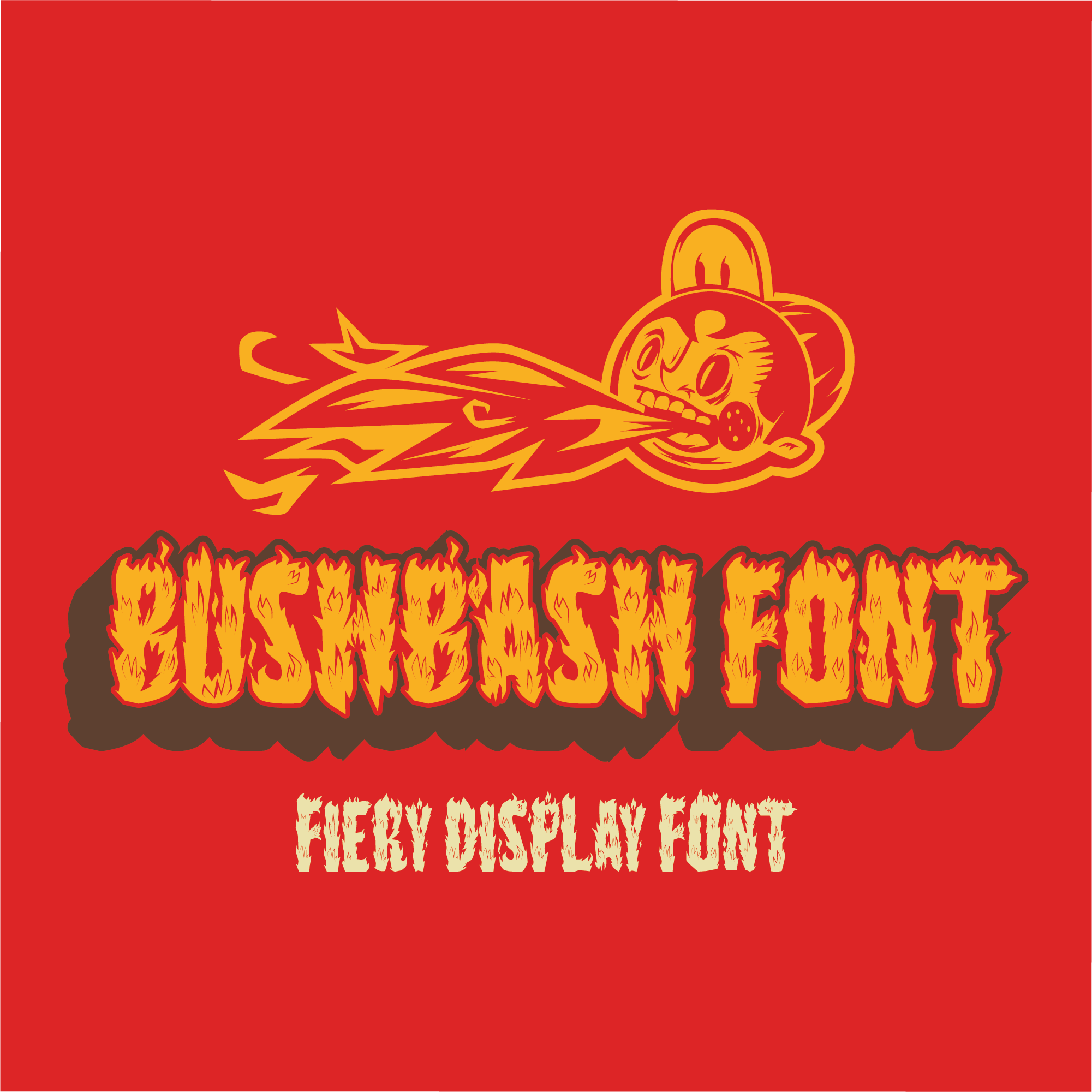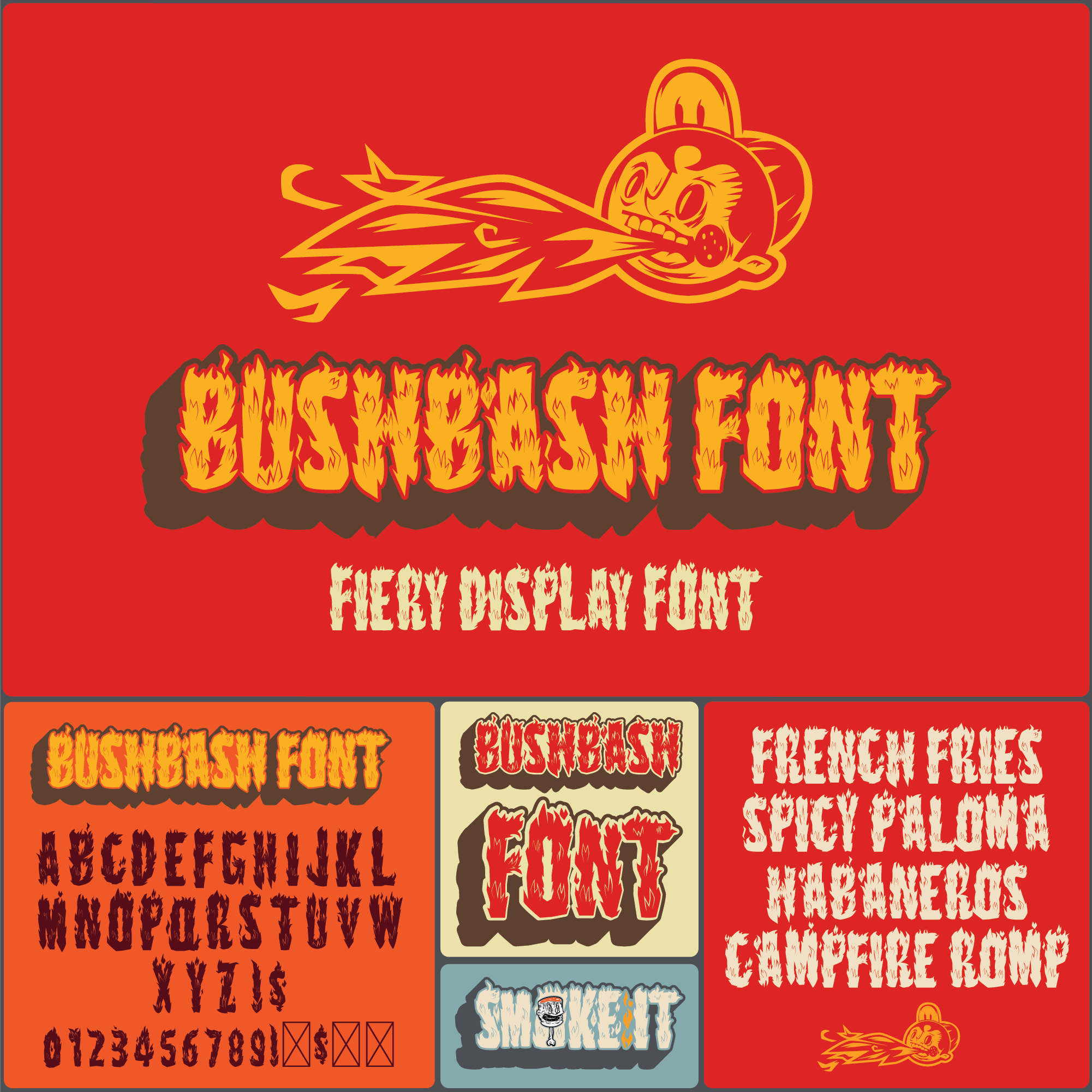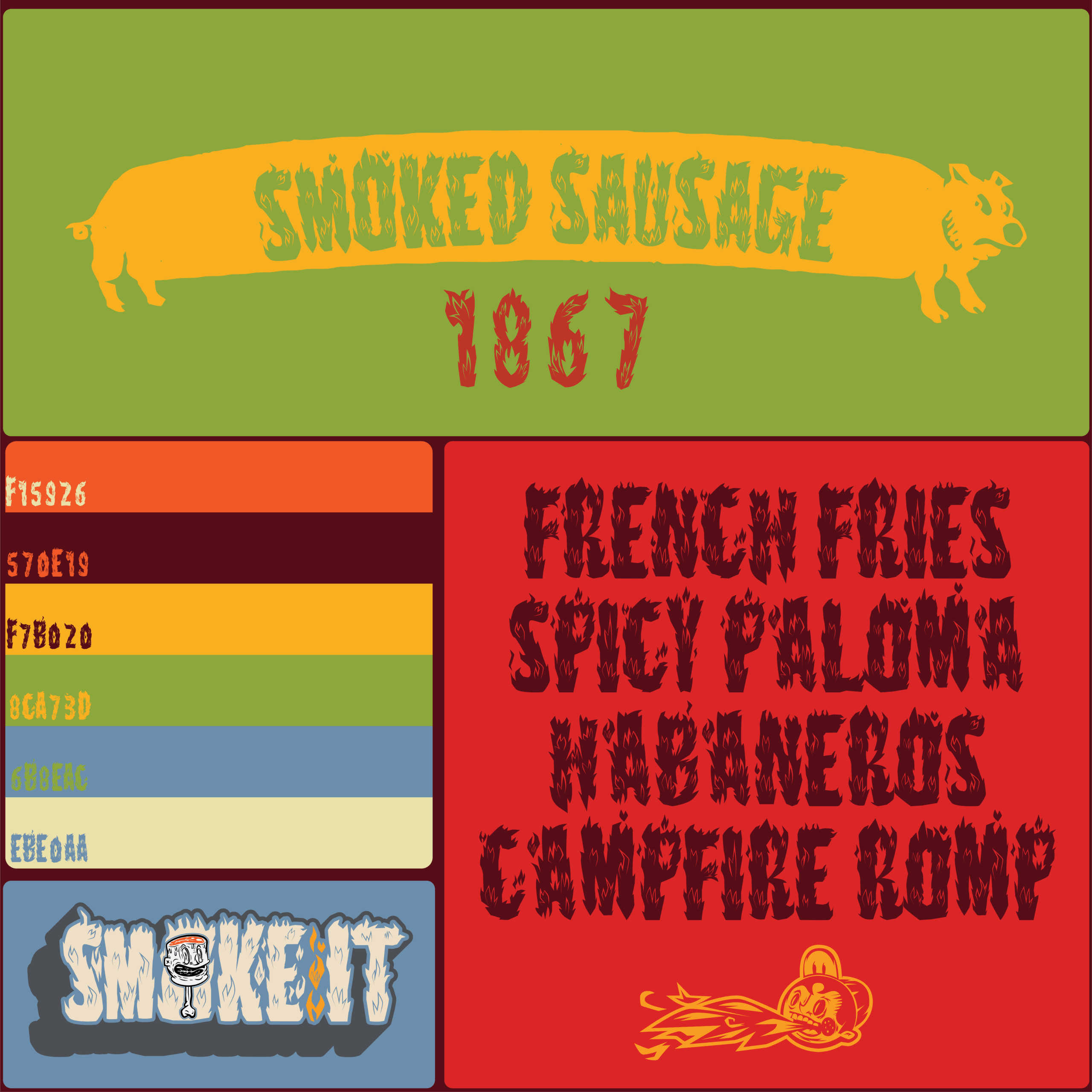
Bush Bash font is a fiery, flame-inspired display typeface designed to bring bold heat and dramatic impact to your visuals. With flamy strokes and a hand-drawn, chaotic energy, this custom font captures the essence of fire in motion. Ideal for posters, band artwork, horror titles, packaging, and any creative project that needs to burn bright, Brushfire delivers expressive style and a sense of raw intensity. Use it in digital or print formats to set your designs ablaze.